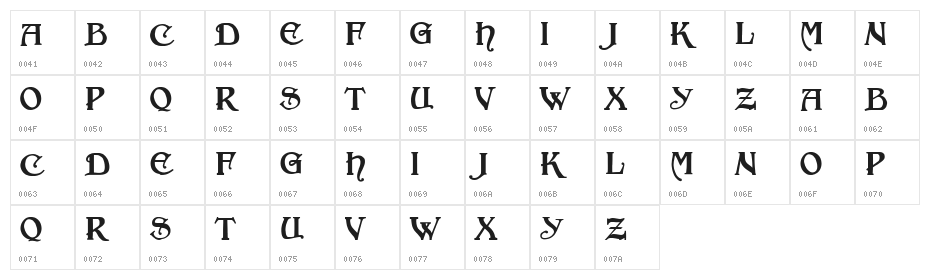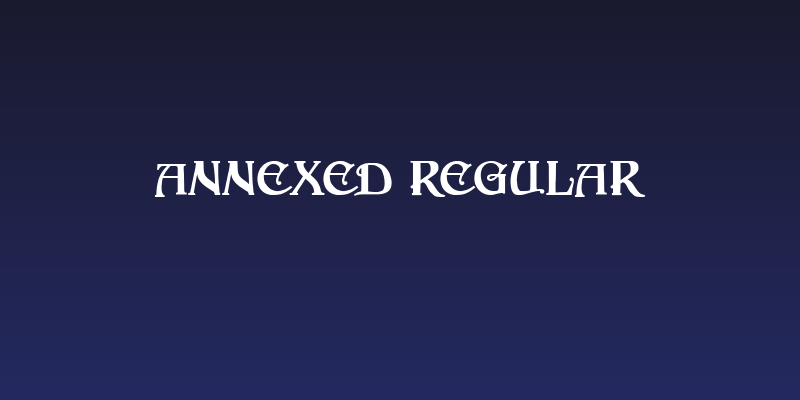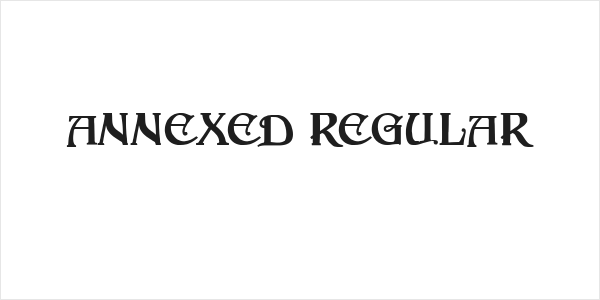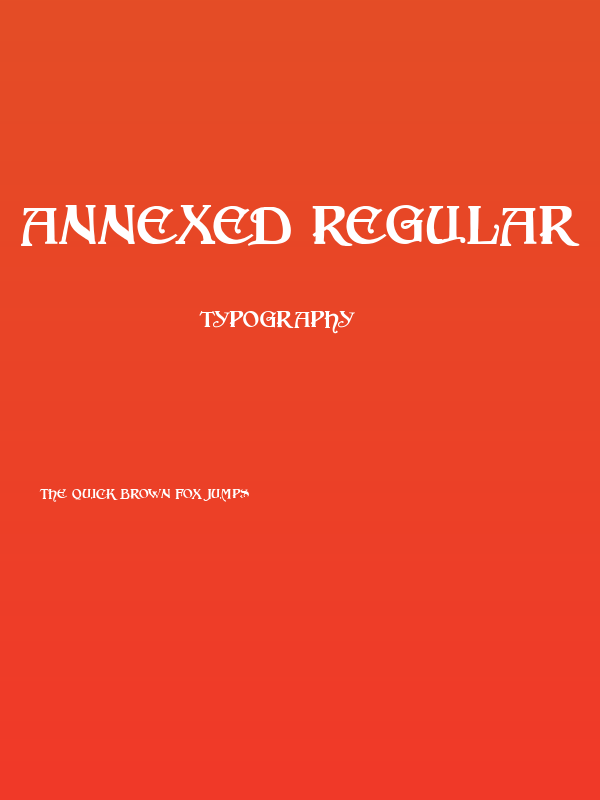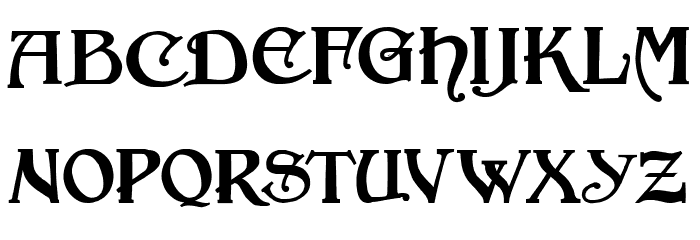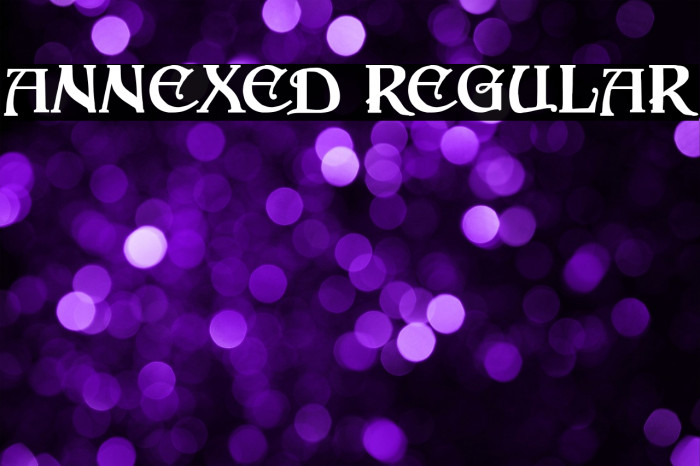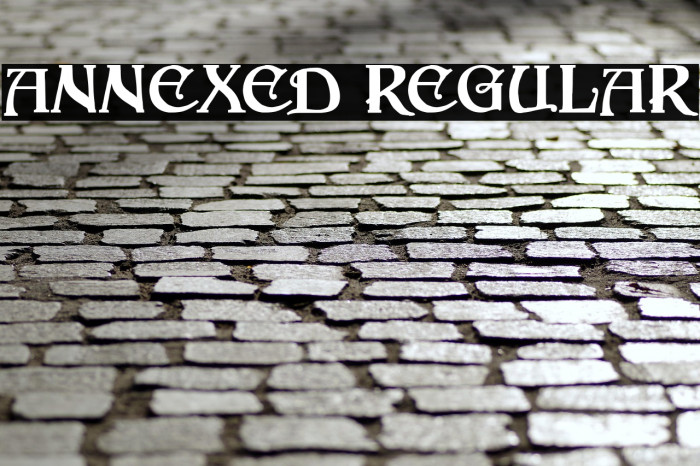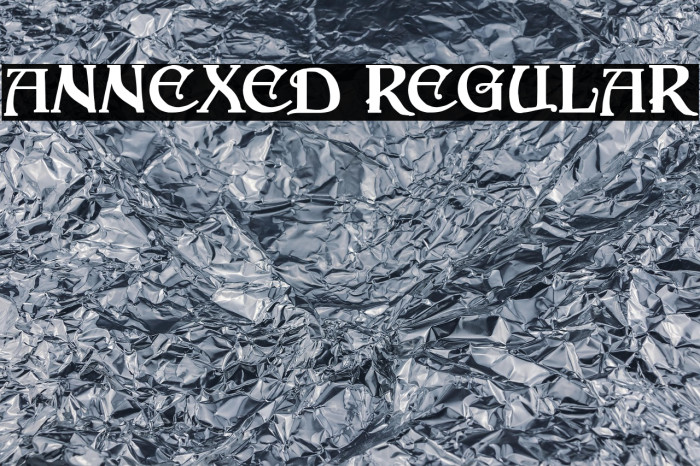
Annexed Regular Font
Annexed Regular Description
This font features a bold and decorative style with intricate curves and flourishes that give it a distinct, medieval appearance. The uppercase letters are particularly ornate, with sharp serifs and unique embellishments that enhance its visual appeal. The lowercase letters maintain a consistent style, with a slightly more subdued design that complements the uppercase characters. The numbers and special characters follow the same decorative theme, ensuring a cohesive look across all glyphs. This font is well-suited for projects that require a historical or fantasy aesthetic, offering a striking and memorable appearance.
| Overall Style | Medieval, Decorative |
| Proposed Projects | Ideal for fantasy book covers, historical event posters, themed invitations, and branding for medieval-themed businesses. |